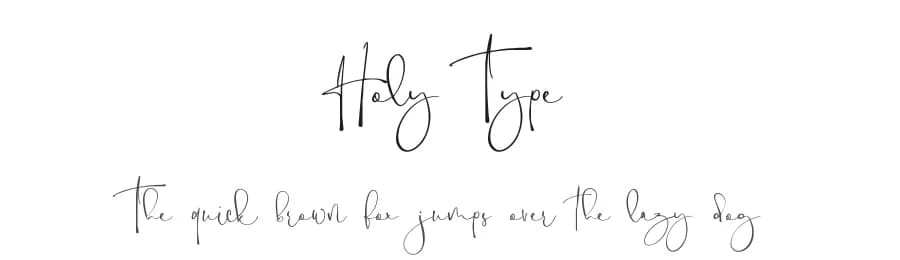
About Holy Type Font
Introducing this is HOLY TYPE FONT a handwritten font inspired and dedicated or consecrated to God or a religious typeface , meaningfull of type.
| Designer | Laire Banyu Sandi Pawenang |
Holy Type Font is a script font that shines as a display or heading face. Pair it with a clean sans-serif or serif font for body text β the contrast creates a clear hierarchy while the two styles stay balanced and easy to read.
Holy Type Font
by The Ocean Studio - Laire Banyu Sandi Pawenang